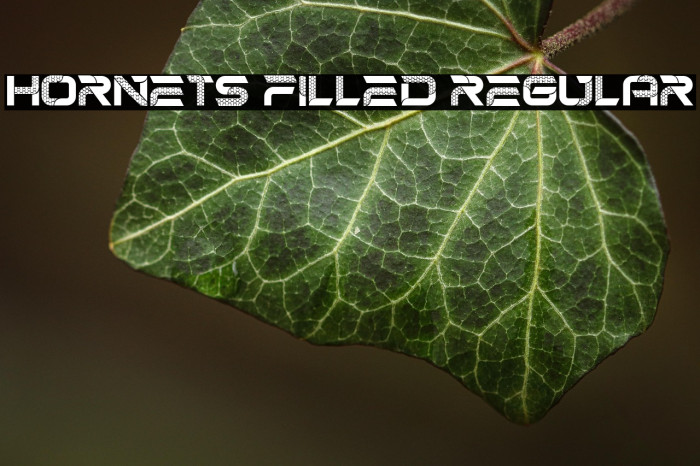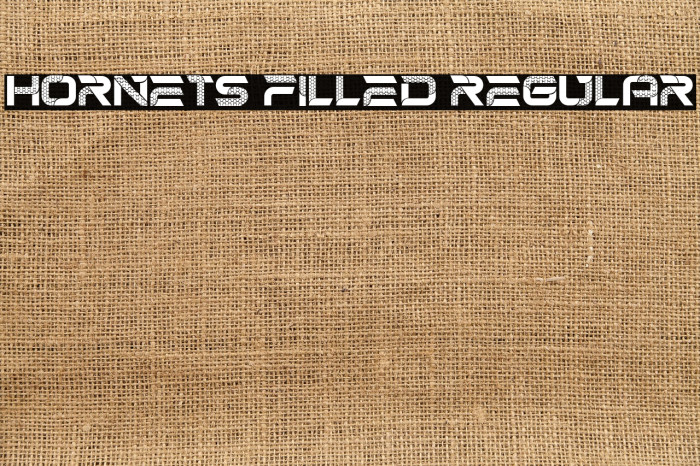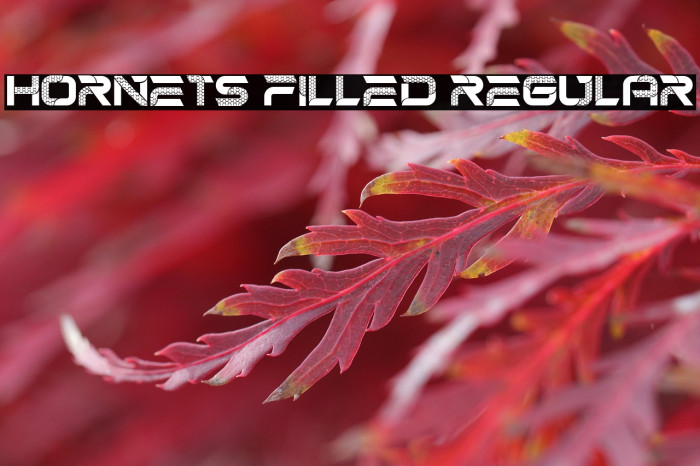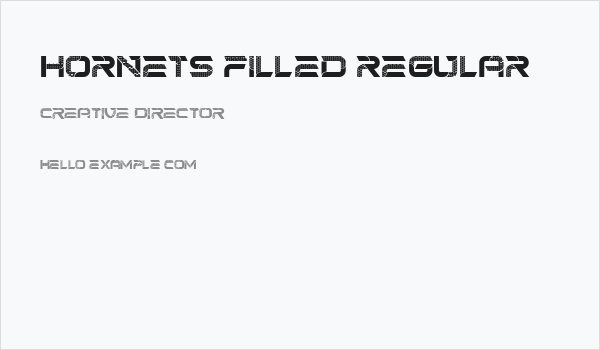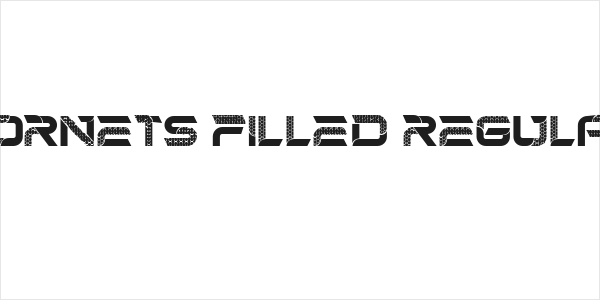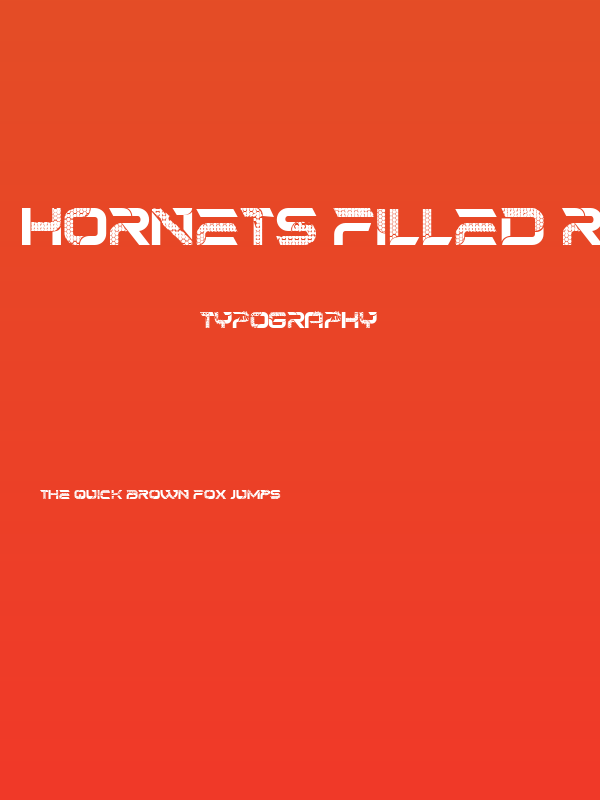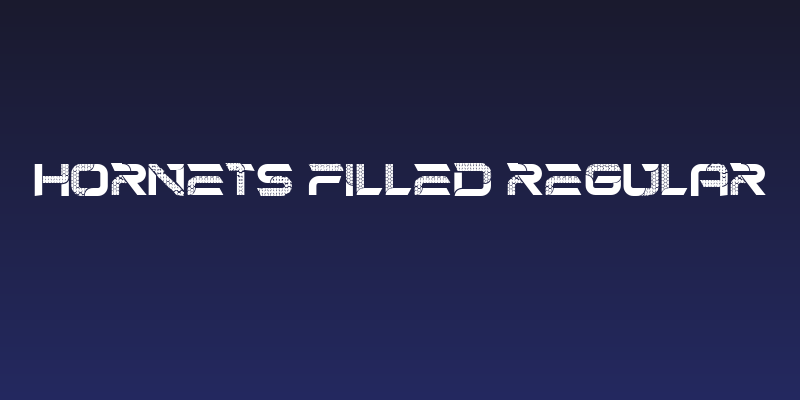
Hornets Filled Regular Font
Hornets Filled Regular Description
This font features a bold and dynamic design with a filled pattern that resembles a honeycomb or mesh texture. The characters are constructed with sharp, angular lines and geometric shapes, giving it a futuristic and industrial feel. The uppercase letters are uniform in height, and the design includes unique cutouts and negative spaces that enhance its visual interest. The font's distinctive style makes it suitable for eye-catching headlines and creative projects that require a modern and edgy look.
| Overall Style | Futuristic, Industrial |
| Proposed Projects | Ideal for sports team branding, tech-related logos, video game titles, and poster designs. |